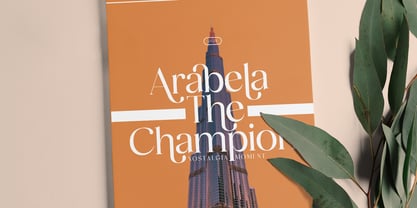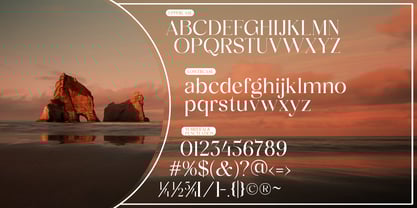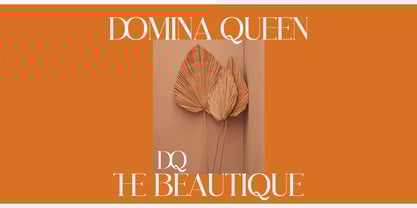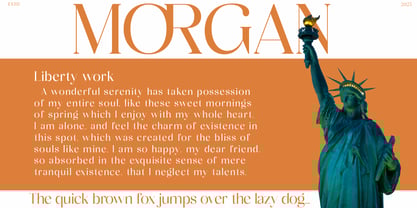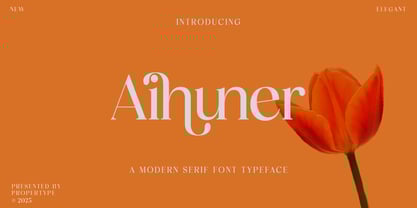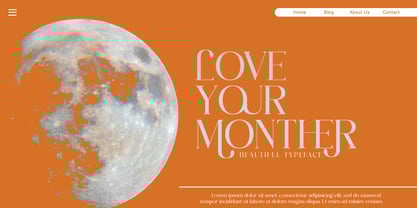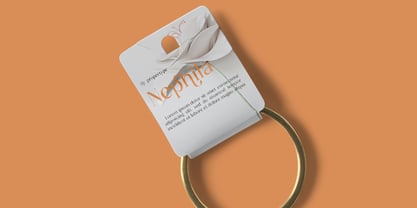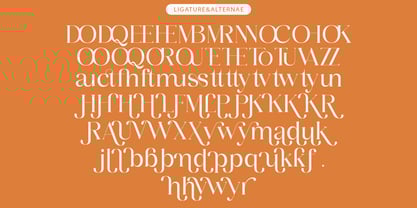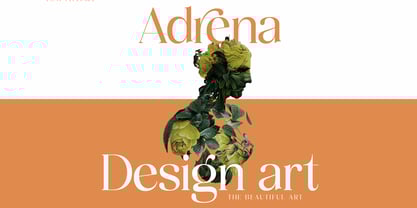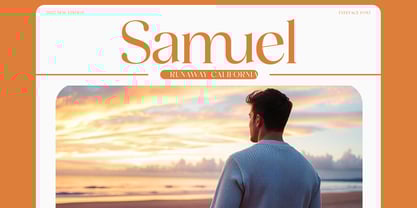
Aihuner
Die Schriftfamilie Aihuner wurde von Nadia Auliana entworfen und von Propertype veröffentlicht. Aihuner enthält 1 Stile.
Aihuner is a contemporary display serif typeface with sharp, dynamic strokes, strong contrasts, and smooth pointed serifs. Giving traditional serif design elements a modern feel, this is a graceful and confident typeface family with a wide range of functional and experimental glyphs.
This font is perfect for your design needs such as creating nostalgic yet clean and elegant designs such as headlines, magazines, logos, packaging, editorials, and more.